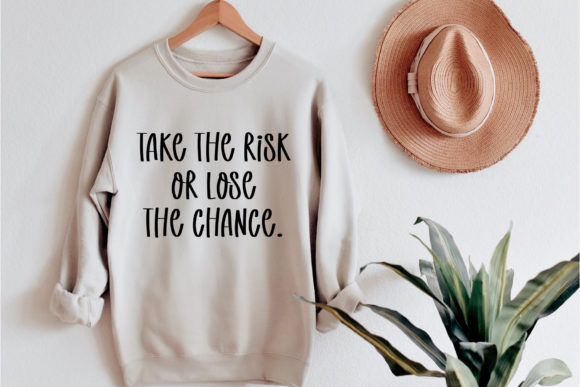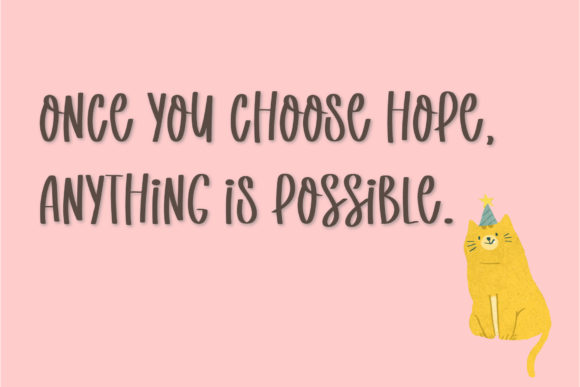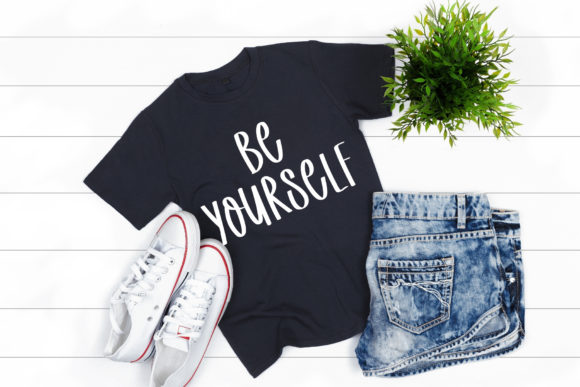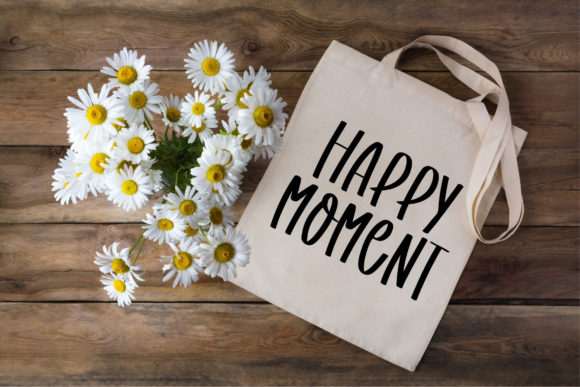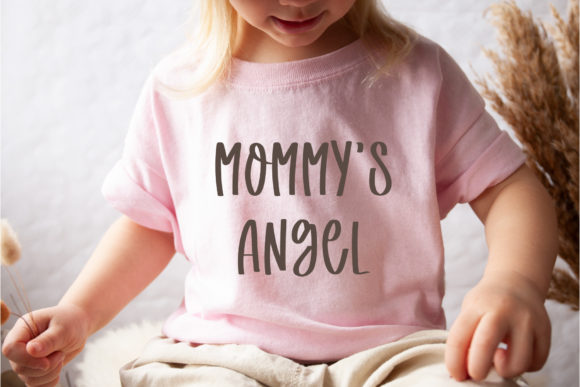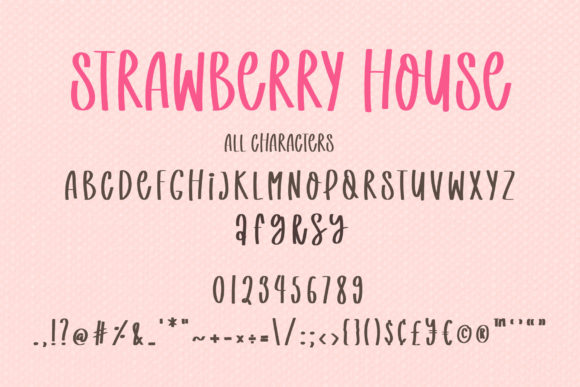
Strawberry House Font
About Strawberry House Font
Strawberry House is a friendly handwritten font, featuring the perfect amount of trendiness. Whether you’re using it for crafting, digital designing, presentations or greeting cards making, it’s perfect!